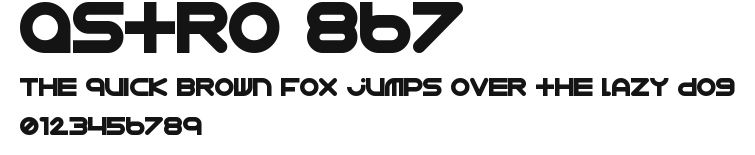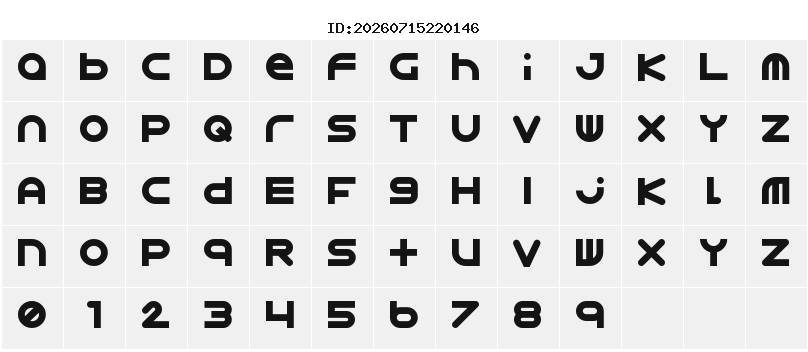
Astro 867 Preview
About Astro 867.ttf
Astro 867.ttf is a modern, elegant sans-serif font designed for ultimate readability and visual harmony. Perfect for branding, headlines, web design, and print materials.